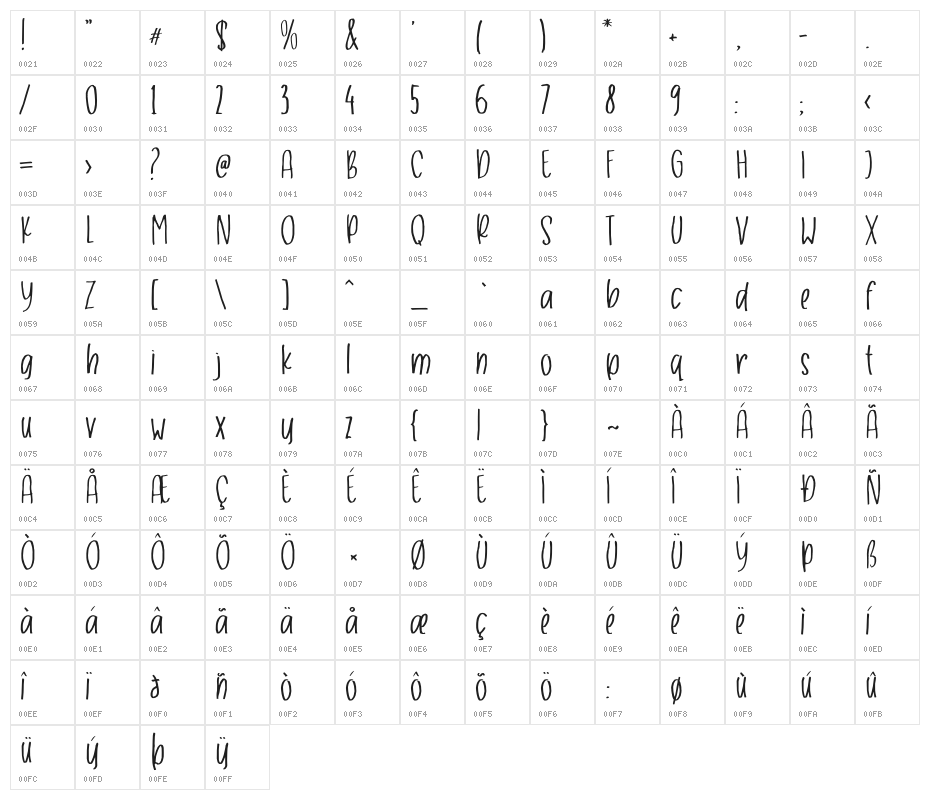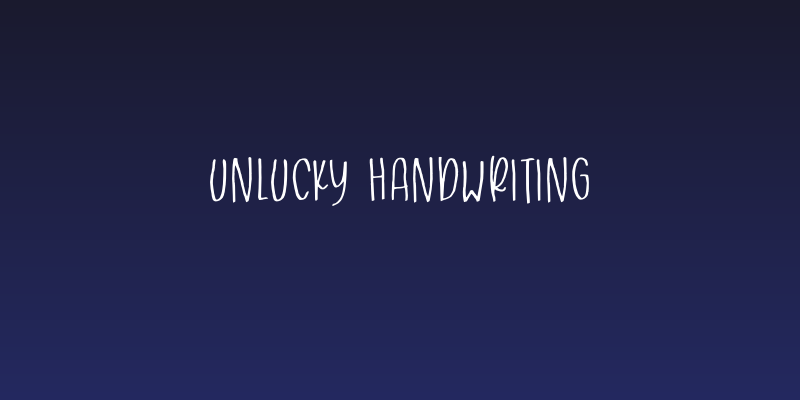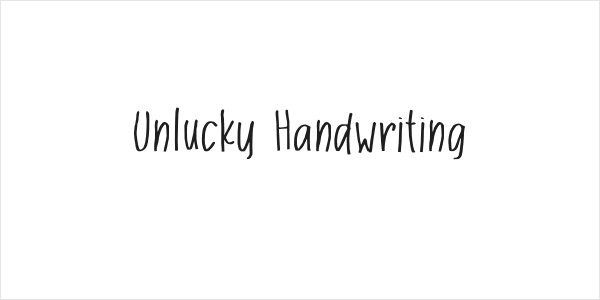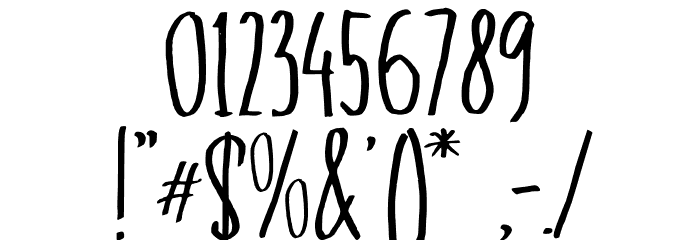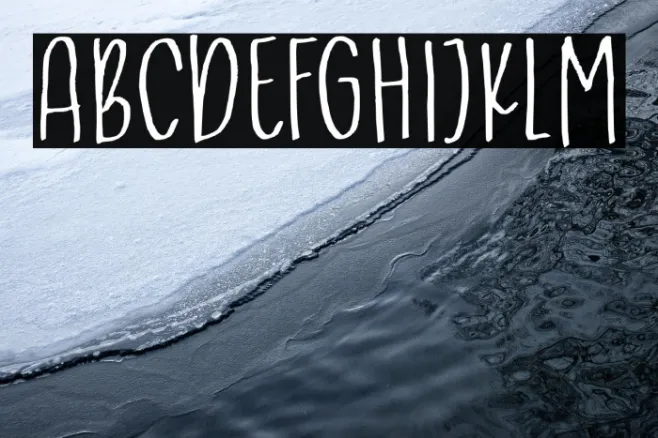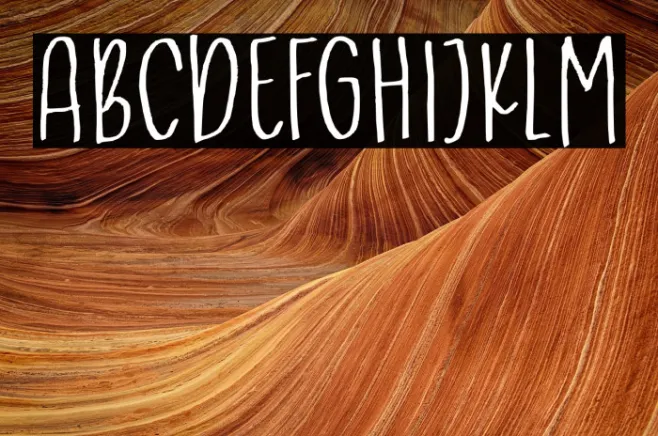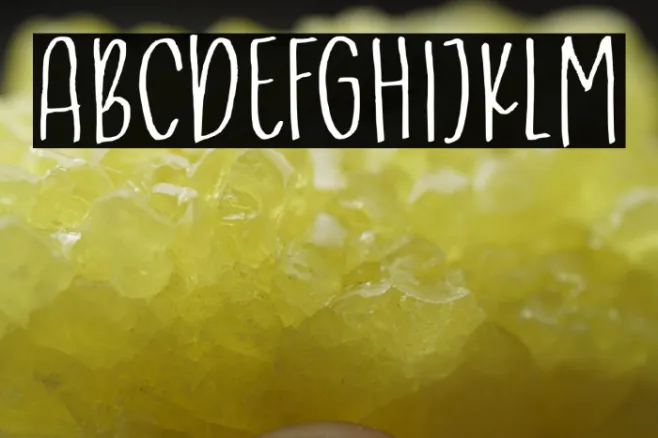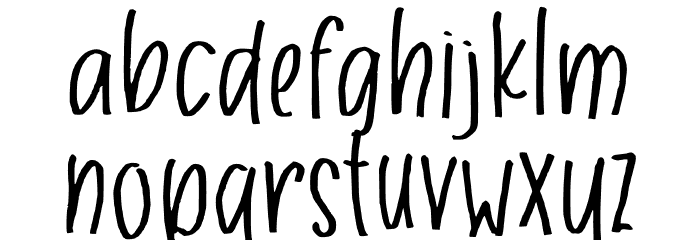
Unlucky Handwriting Font
Unlucky Handwriting Description
This font exudes a playful and casual handwritten style, characterized by its uneven strokes and slightly tilted letters. The uppercase and lowercase letters maintain a consistent flow, giving it a cohesive yet informal appearance. The numerals and special characters follow the same whimsical style, making it versatile for various creative projects. The font's organic and natural feel is perfect for designs that require a personal touch, such as greeting cards, invitations, or casual branding. Its unique charm lies in its imperfect lines, which add a sense of authenticity and warmth to any text.
| Use Case | Greeting cards, Invitations, Casual branding |
| Proposed Projects | Ideal for greeting cards, invitations, casual branding, and creative projects needing a personal touch. |